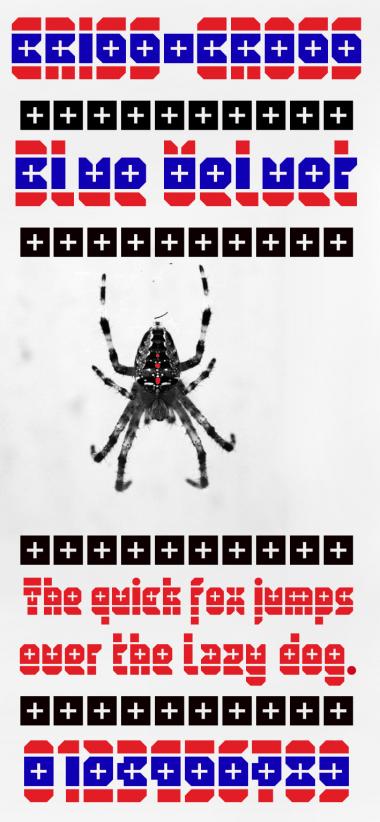
Why is the spacing after I downloaded my font different to the spacing I adjusted? The sample text looks fine but the ttf-file looks weird yet. Did I do something wrong?
Looks great. It works really well.
I think the single colour text, in the sample, is much easier to read.
Wonderful. I'm impressed how well the treatment works across the entire typeface.
This Fontstruction is fun, I just did another sample. One coloured letters only, just for you, p2pnut ;-)